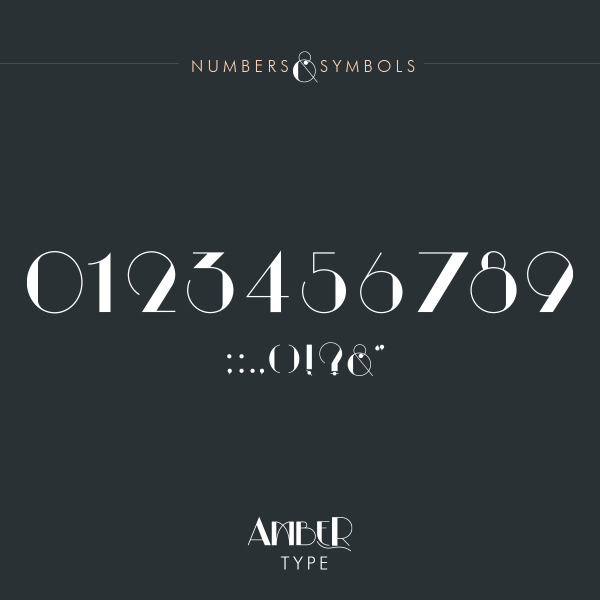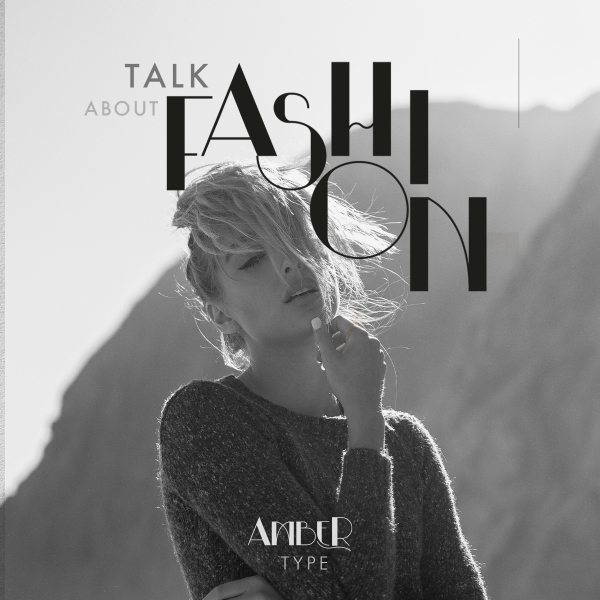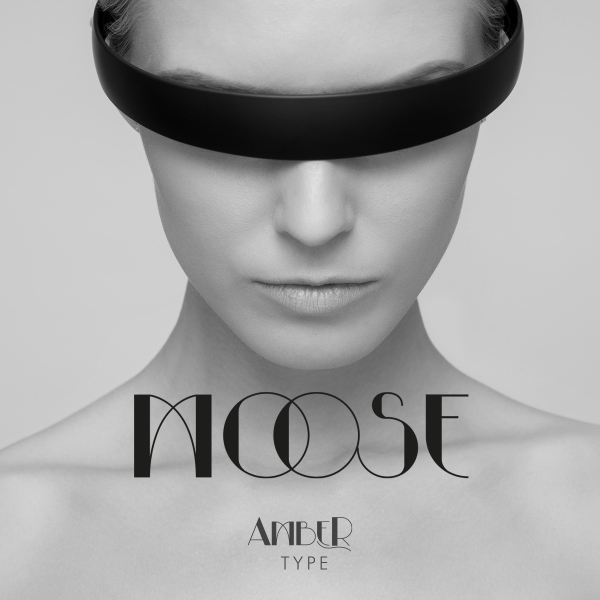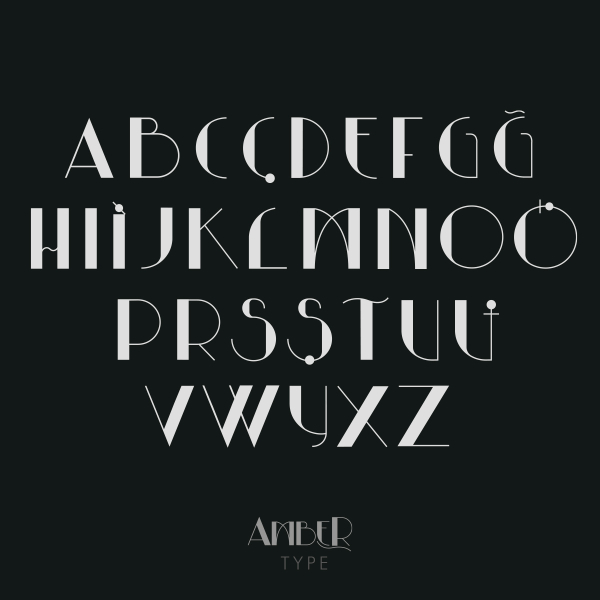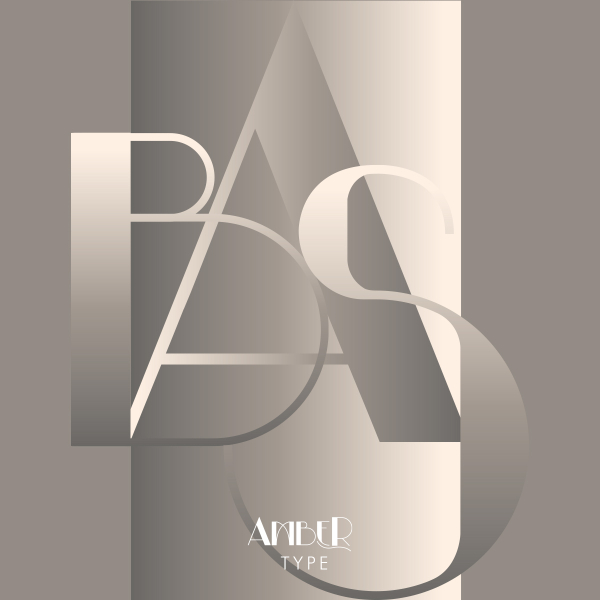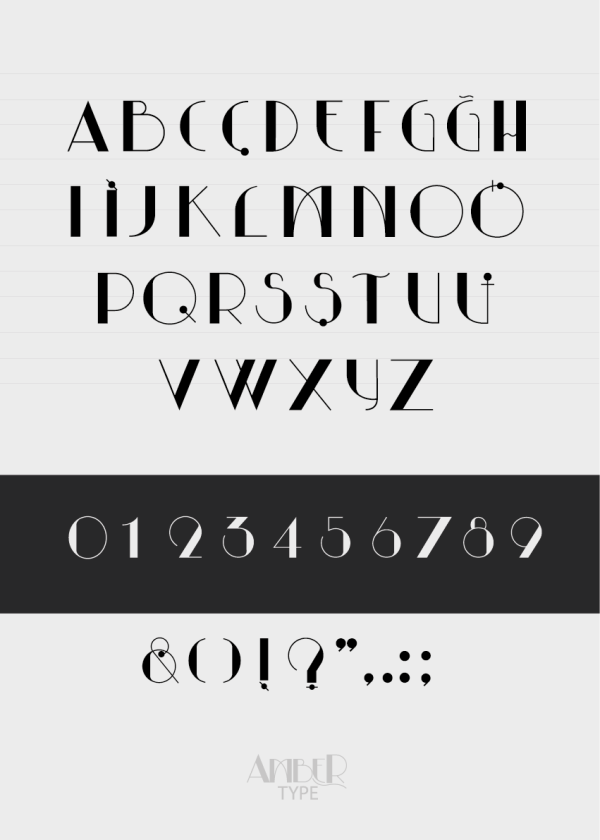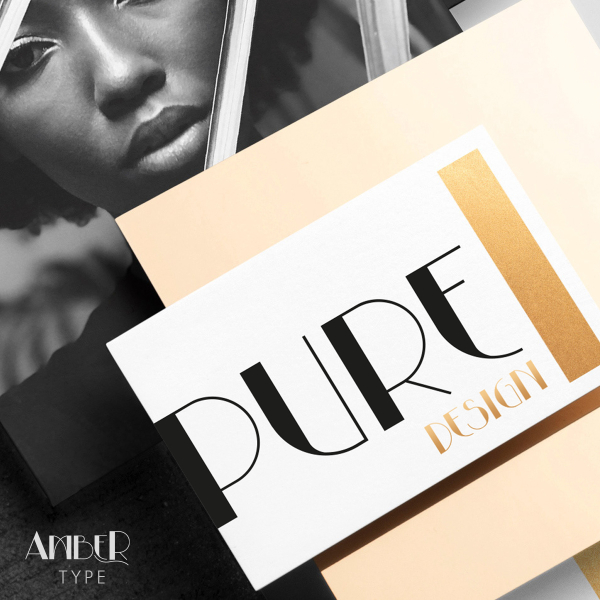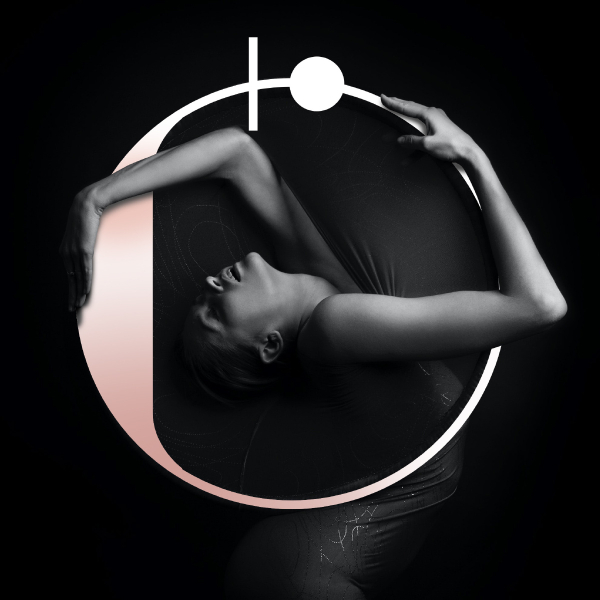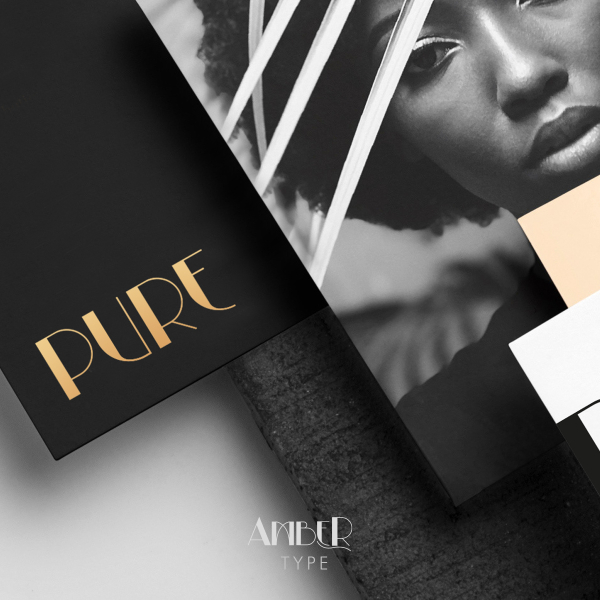
Amber Type
Amber is an all-caps font inspired by the pioneers of the Art Deco movement, comes in two weights, and goes perfectly with any modern design.